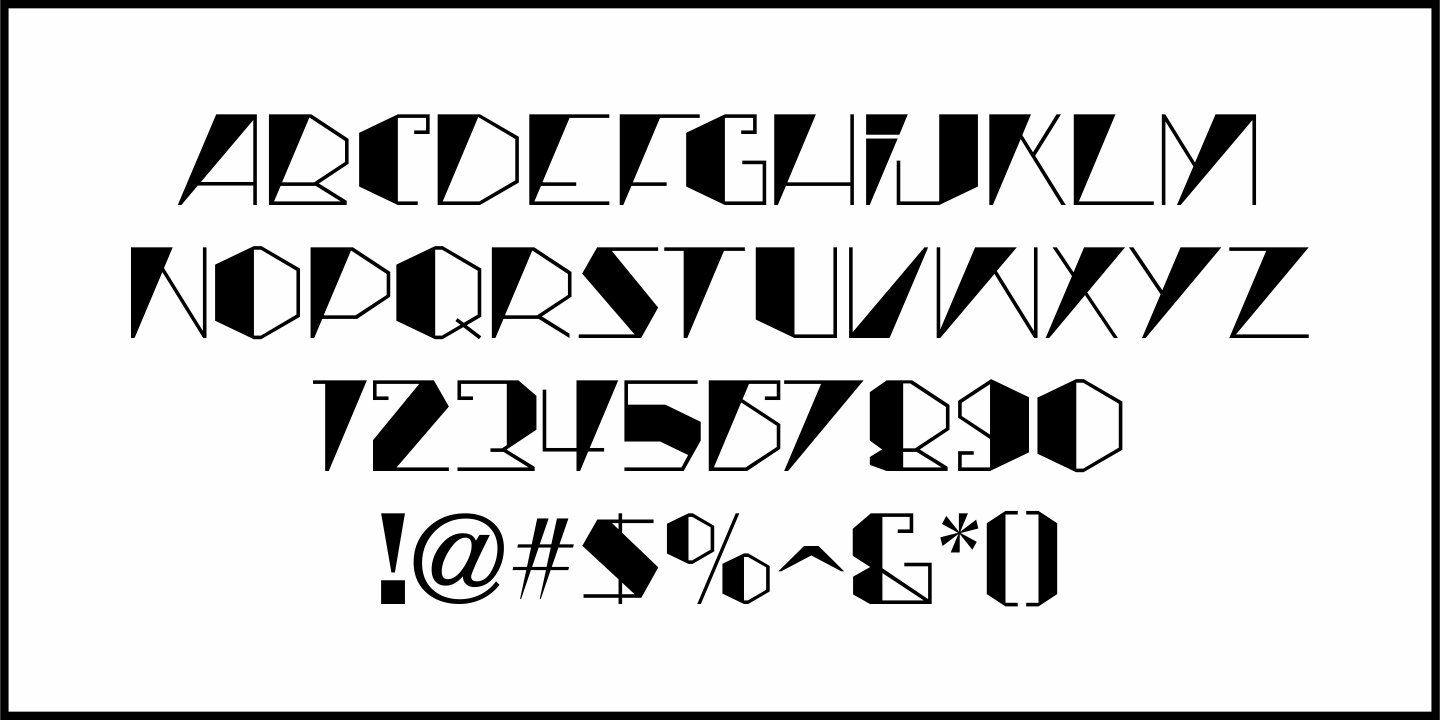
Rotisserie Menu
A 1928 menu for the restaurant “Rotisserie Du Cardinal” had the word “Cardinal” hand lettered in quite an unusual Art Nouveau type design consisting of thick and thin lines using angles to form the letter shapes.
This eccentric (yet charming) style of lettering is now available as Rotisserie Menu JNL in both regular and oblique versions.
Rotisserie Menu JNL Regular by Jeff Levine Fonts